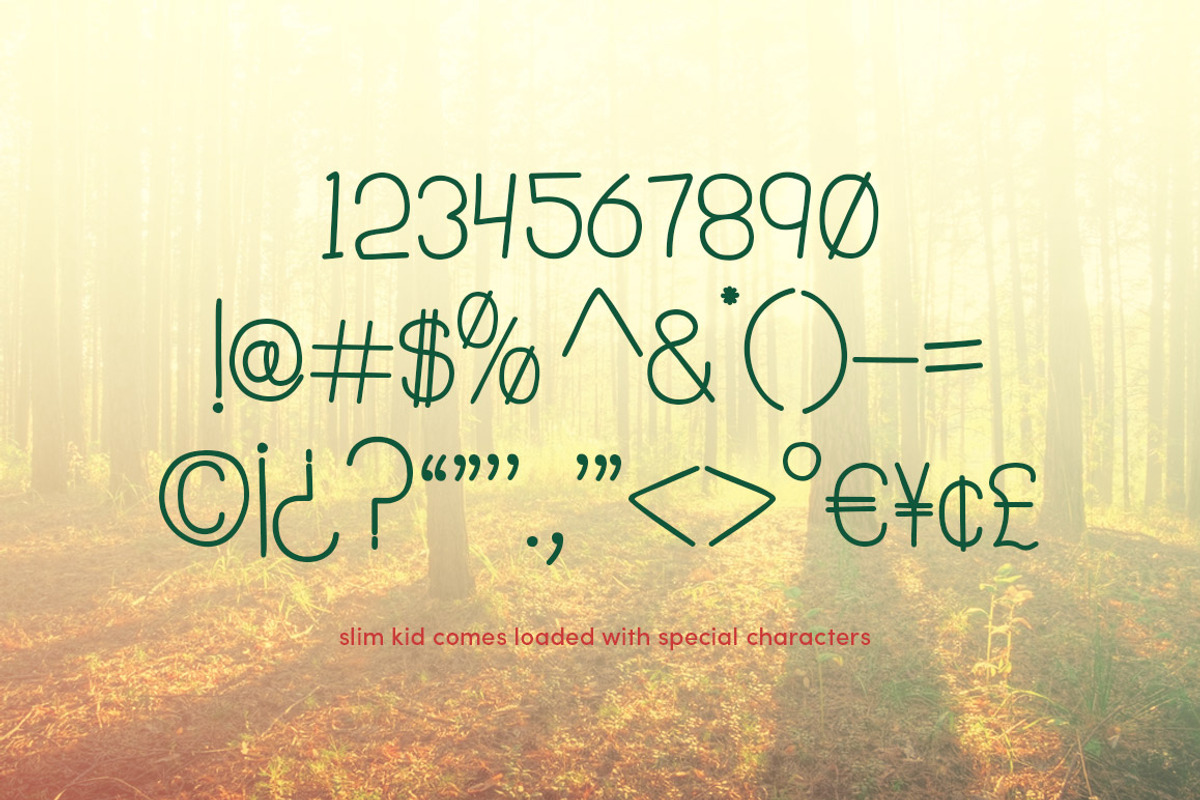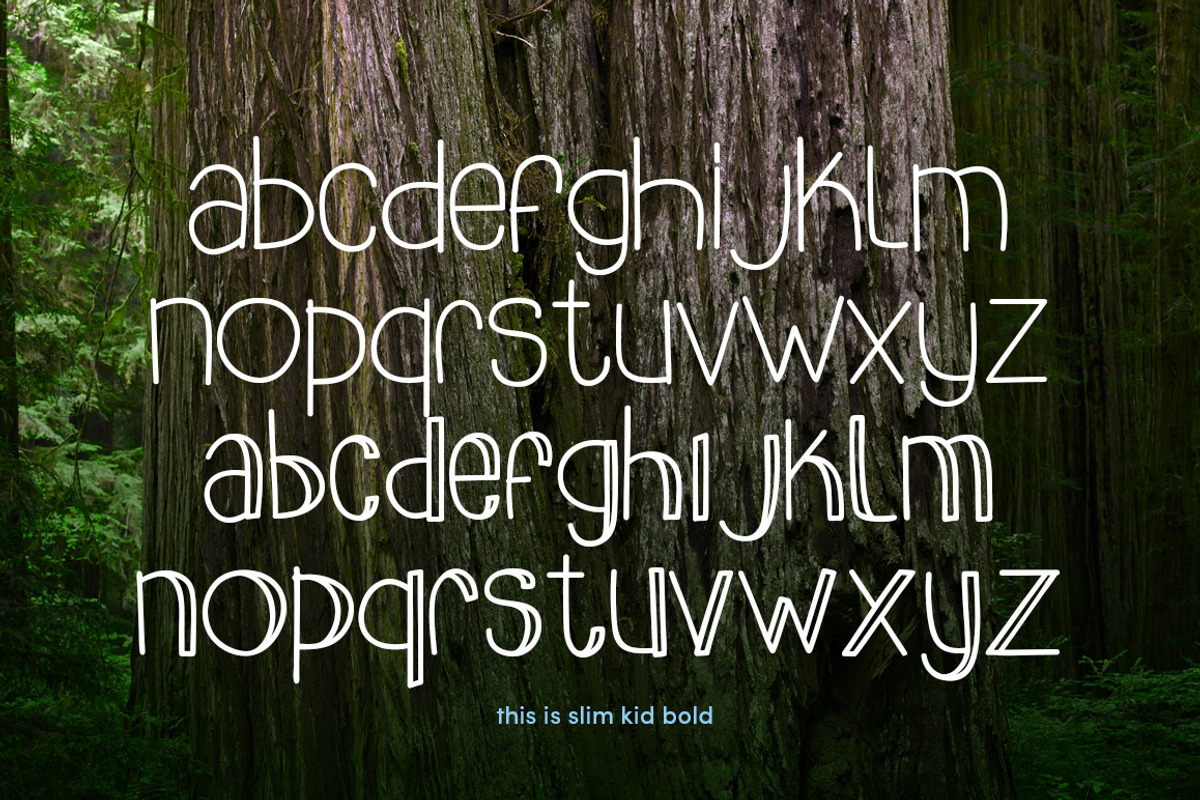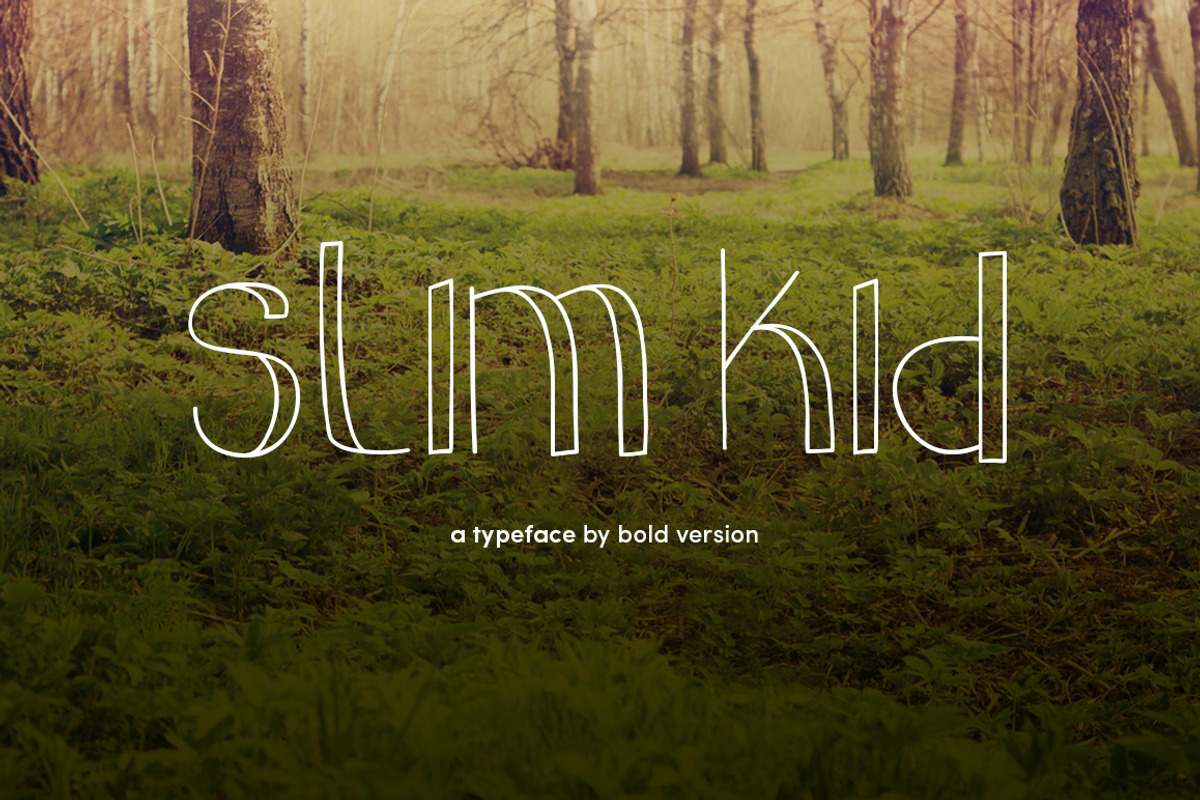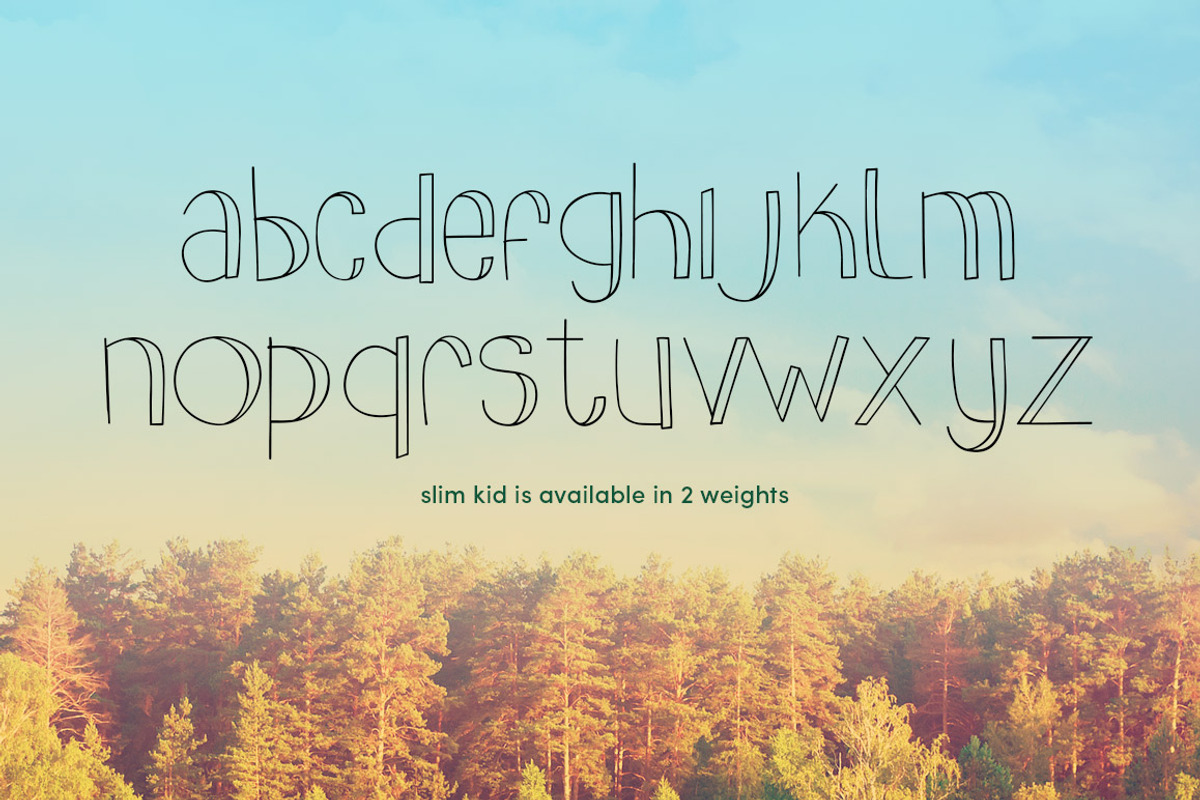
slim kid typeface
slim kid typeface by boldversion is a font selected for branding, posters, packaging, typography.
- Each weight includes 2 variants of lowercase letters and is loaded with lots of special characters.
- slimkid Light
- slimkid Bold
Why slim kid typeface is worth a look
slim kid typeface by boldversion fits naturally into Branding, posters, packaging, typography.